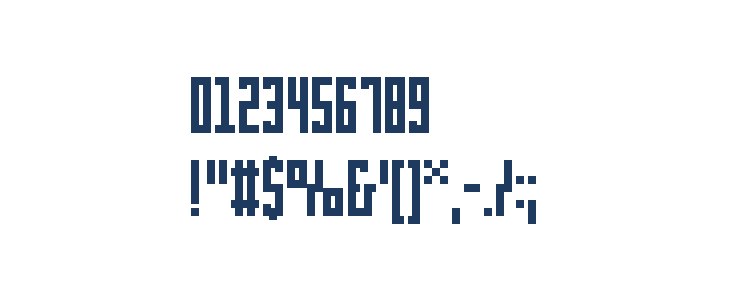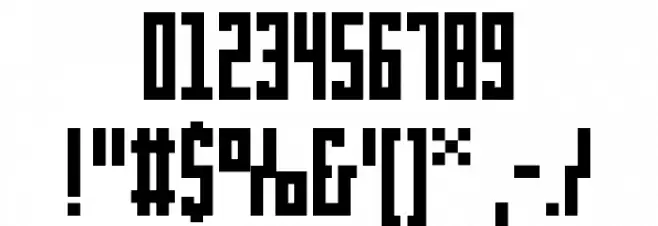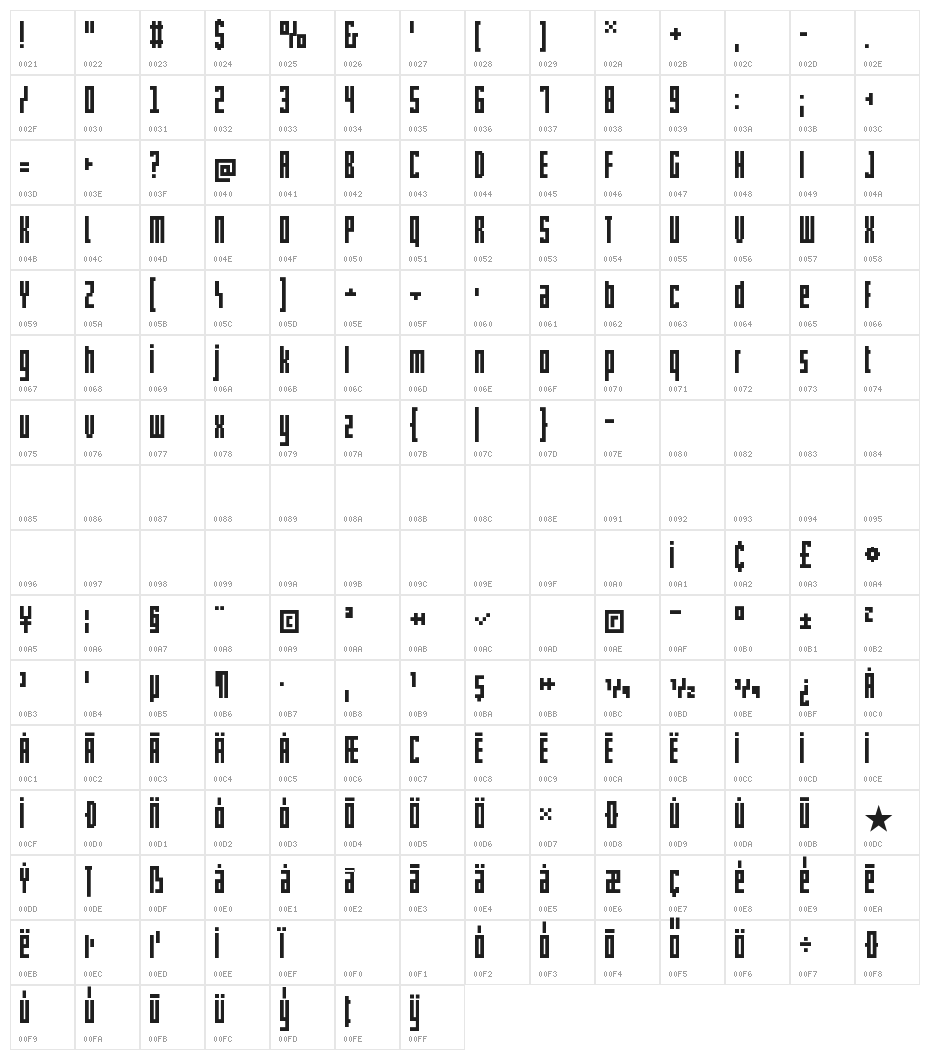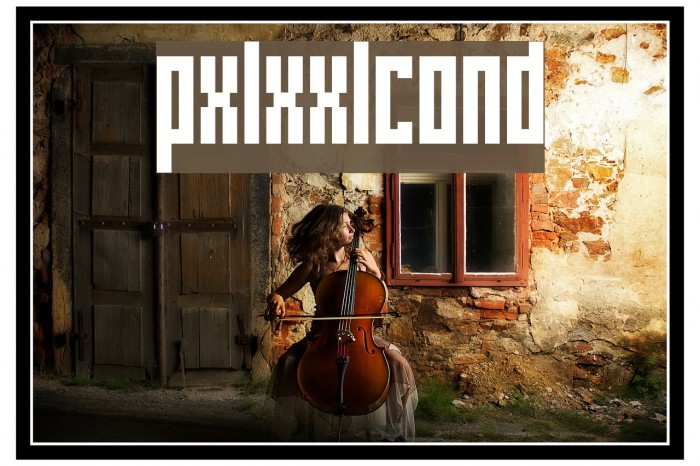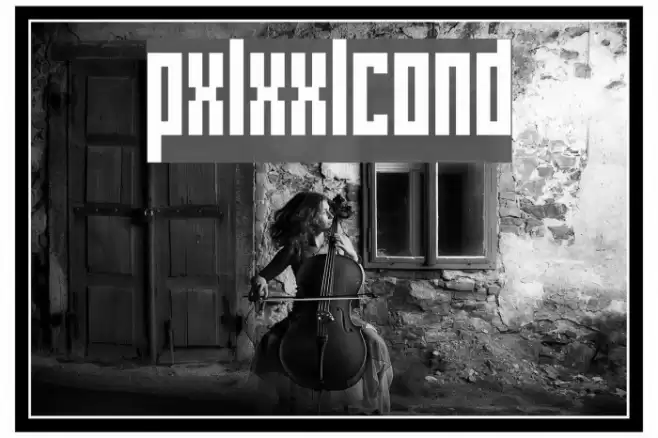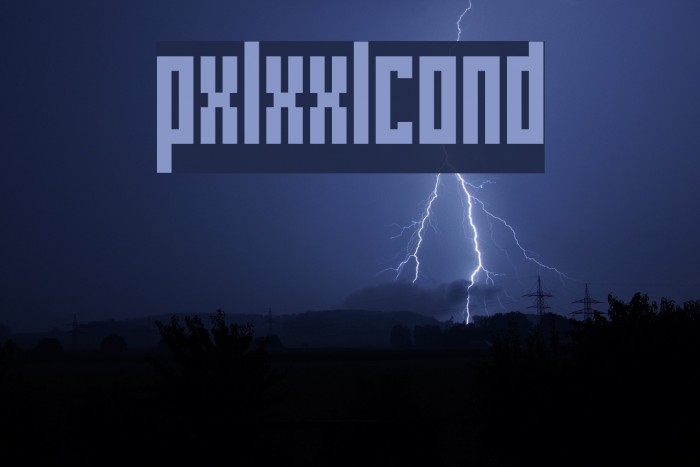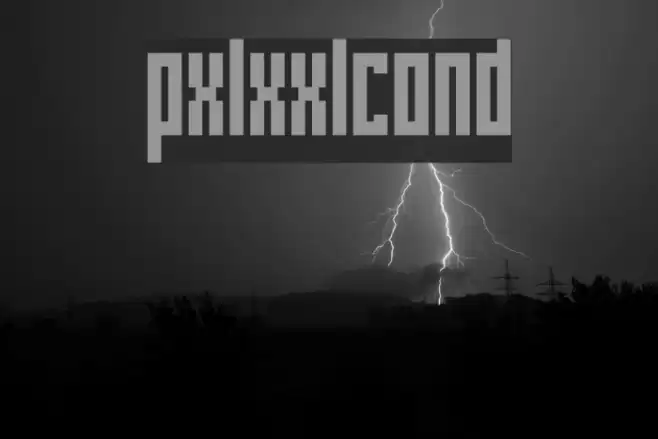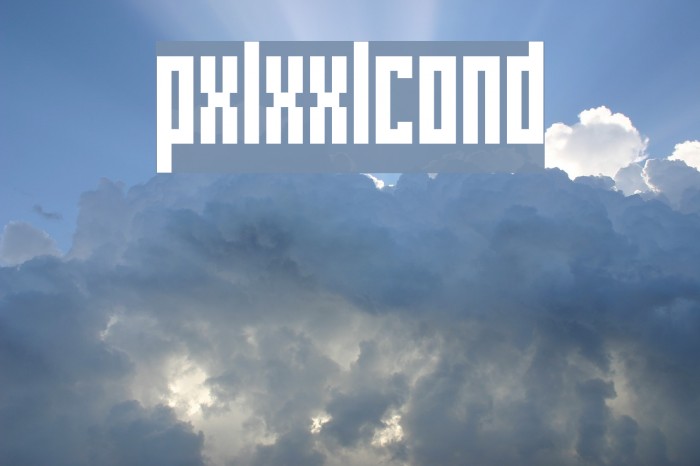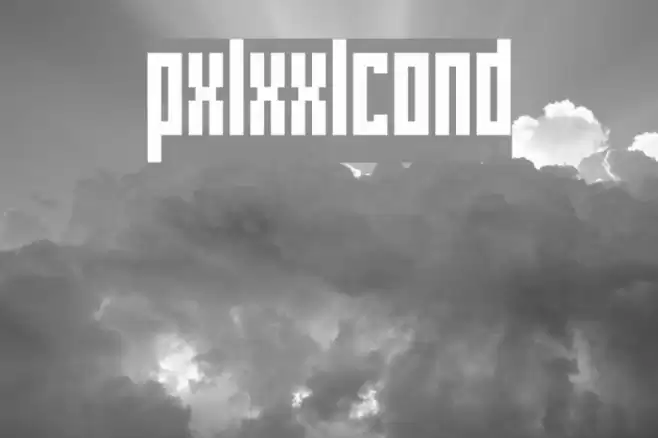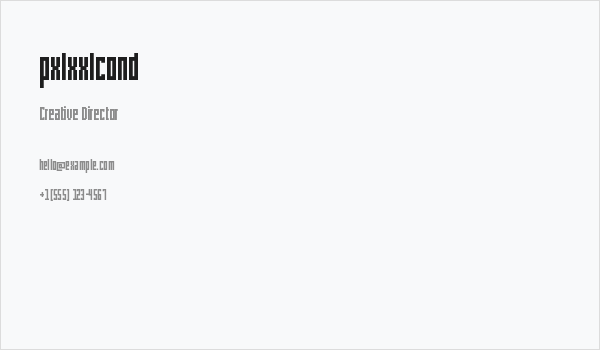
pxlxxlcond Font
pxlxxlcond Description
This font features a bold, geometric design with a pixelated aesthetic reminiscent of early digital displays. The characters are constructed with uniform, block-like shapes, creating a strong visual impact. The uppercase and lowercase letters maintain a consistent height, contributing to a cohesive look. The numerals and special characters follow the same style, ensuring uniformity across all glyphs. This font's distinct style is both modern and retro, making it suitable for projects that aim to capture a digital or tech-inspired theme.
| Overall Style | Modern, Retro |
| Use Case | Headlines, Logos, Digital displays |
| Proposed Projects | Ideal for video game design, tech-themed posters, digital art projects, and retro-style branding. |